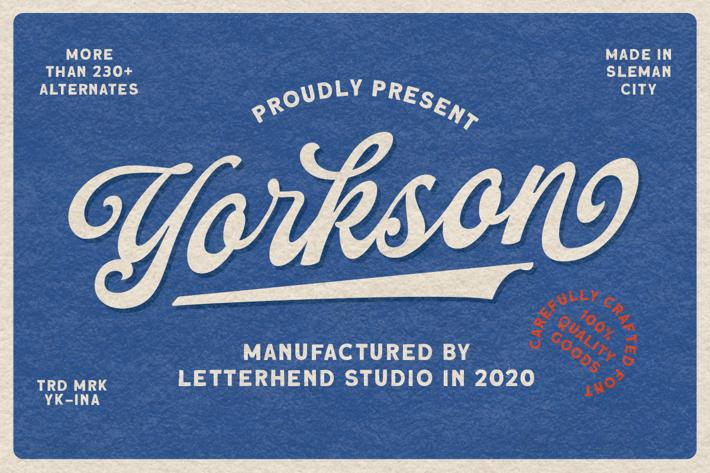
Yorkson - Script Logotype Font
Introducing, Yorkson - A Script Logotype Font. Beside it has more than 230+ glyphs, this type of font perfectly made to be applied especially in logo. Just play around with the swashes and ligatures, then you can have your logo design. This font is also perfect for various formal forms such as invitations, labels, logos, magazines, books, greeting / wedding cards, packaging, fashion, make up, stationery, novels, labels or any type of advertising purpose.
+ uppercase & lowercase
+ numbers and punctuation
+ multilingual
+ swash and ligature
+ alternates